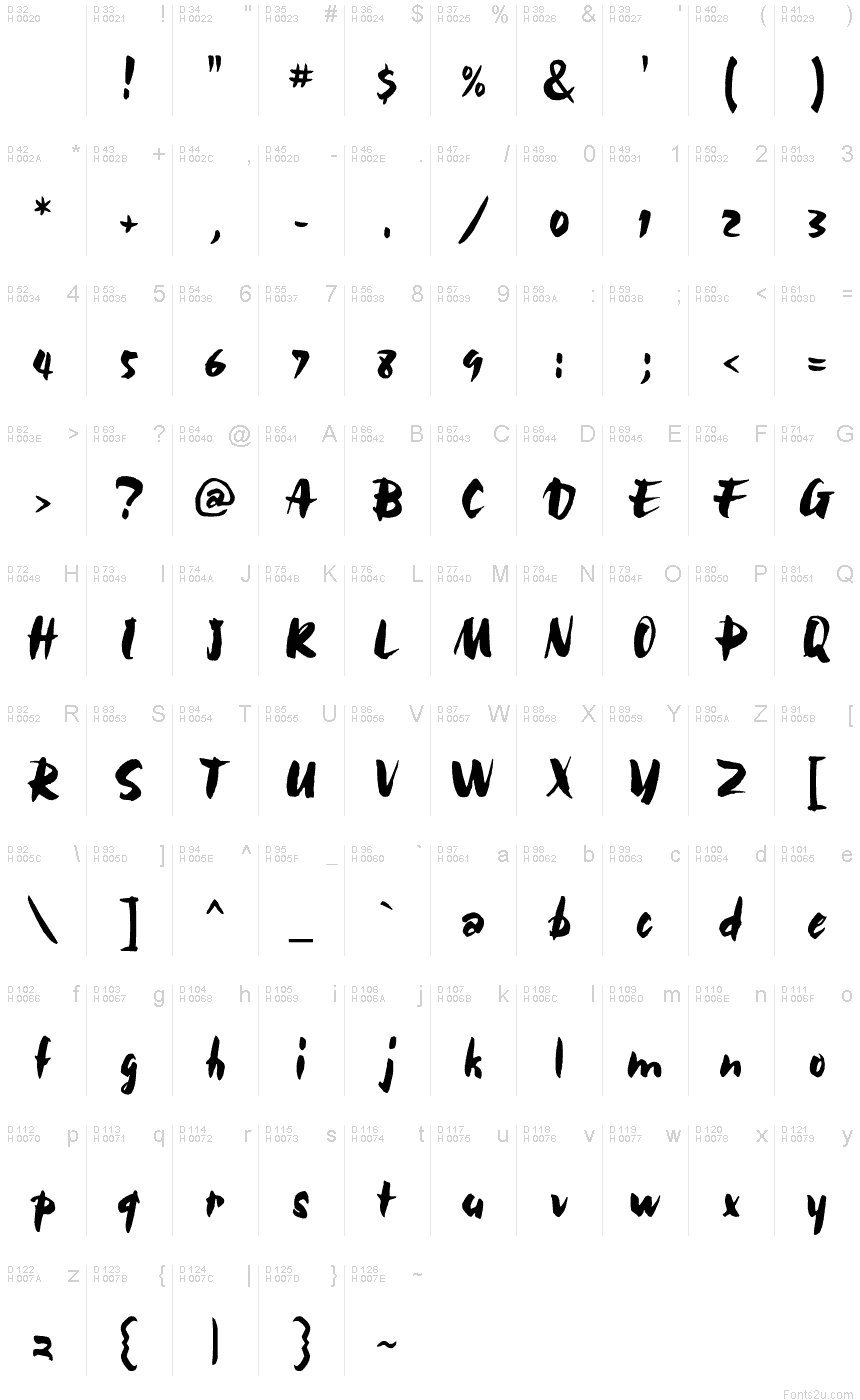
Bolide Regular
Bolide Regular font by Richard William Mueller is a free brush script typeface with the swagger of fast, inky lettering. Thick, slashing strokes, rough edges, and a forward-leaning rhythm make it feel like it was painted in one urgent motion. Part of the Bolide family, it has a gritty, hand-made texture that grabs attention without losing legibility at larger sizes.
Using Bolide Regular, you can bring raw energy to sports posters, rock or metal band logos, streetwear branding, event flyers, game titles, and bold social graphics. This free font shines when you let it run big and loud, then ground it with a simple sans-serif for small supporting text.